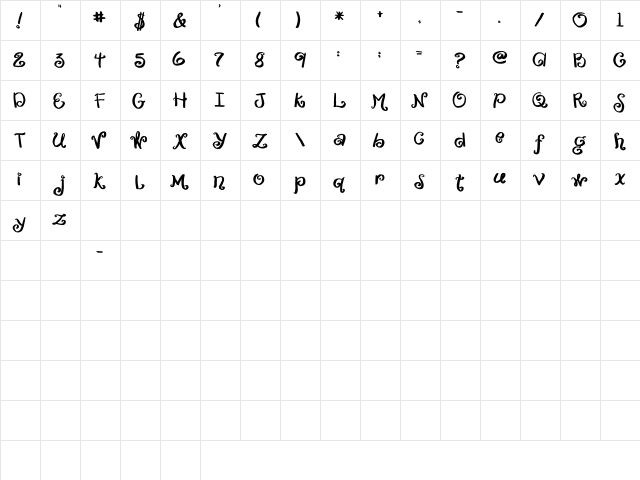
2Peas Cherub 2Peas Cherub
Design Context for 2Peas Cherub Typeface
2Peas Cherub is a composed and adaptable typeface that performs quietly and consistently across a wide range of design contexts.